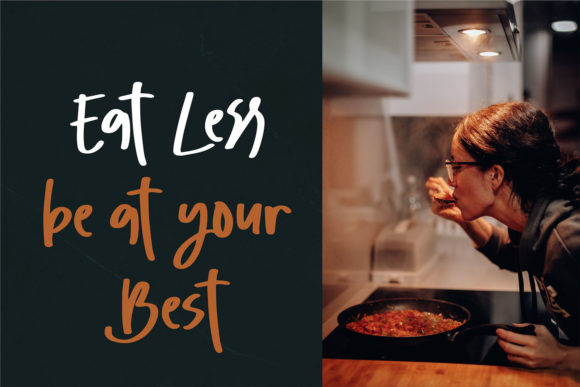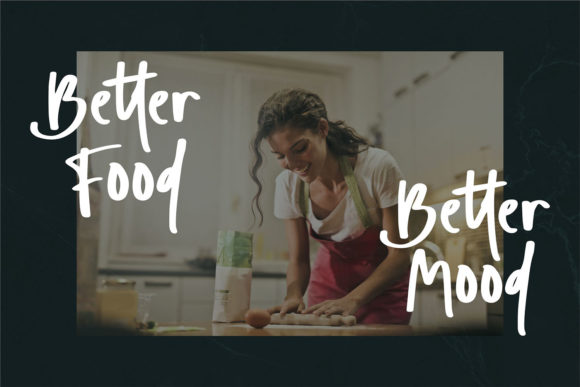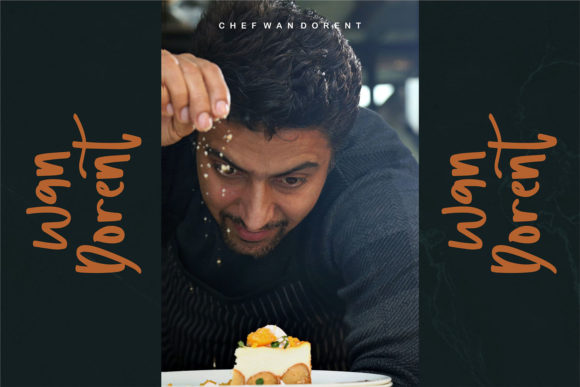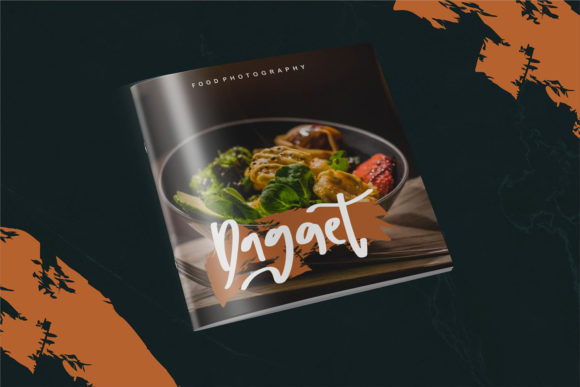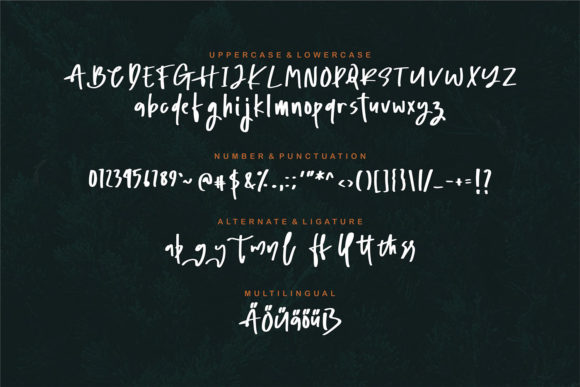
The Graybet Font: Elevate Your Designs with a Stylish Handwritten Touch
Have you ever been in the middle of a design project, and suddenly, you’re stuck on finding the perfect font? I recall a recent experience where a client requested a unique, handwritten font for their branding campaign. After hours of searching, I stumbled upon Graybet, and it instantly became my go-to. In this article, I’ll share my journey with Graybet, its features, and how you can make the most of this beautiful font in your designs.
An Honest Review of Graybet
What I Love About Graybet ✨
- ✅ Unique and stylish handwritten design that adds a creative touch to any project
- ✅ Highly versatile and works well for various design materials, such as posters, thank you cards, quotes, greeting cards, logos, and business cards
- ✅ Easy to read and understand, making it perfect for conveying messages
- ✅ The font’s imperfections and subtle variations give it a personal and authentic feel
- ⚠️ Some users might find the font a bit too stylized for certain projects, such as formal or corporate designs
- ⚠️ Limited availability of alternative styles or variations, which might not suit every designer’s needs
The Backstory of Graybet
Graybet was designed with the intention of creating a unique, handwritten font that captures the essence of creativity and self-expression. The designer aimed to craft a font that would add a personal touch to any design project, making it perfect for crafters, designers, and creative hobbyists.
Q: What type of projects is Graybet best suited for?
A: Graybet is perfect for designs that require a creative touch, such as posters, thank you cards, quotes, greeting cards, logos, and business cards.
Q: Is Graybet compatible with OpenType features?
A: Yes, Graybet supports OpenType features, including stylistic alternates and glyphs, which can be accessed in compatible design software.